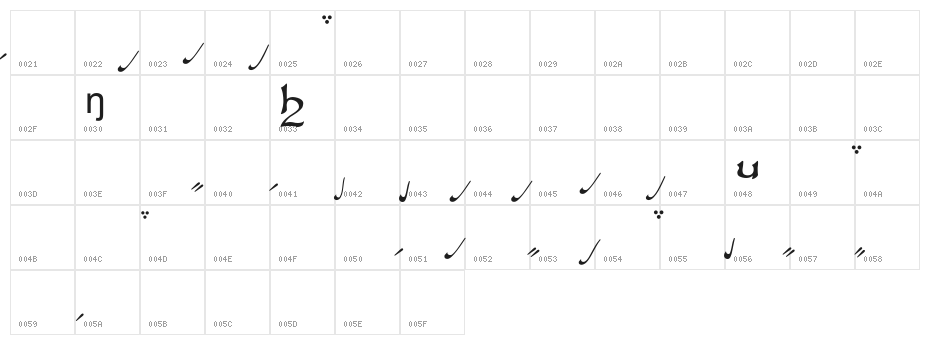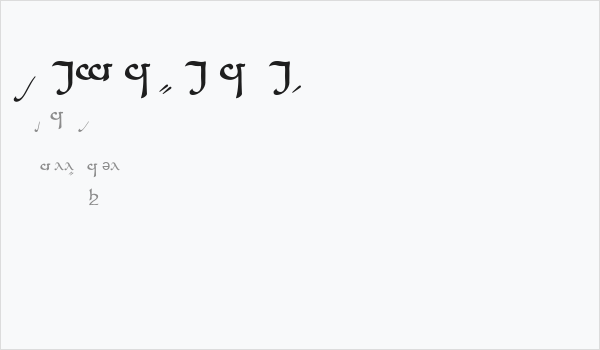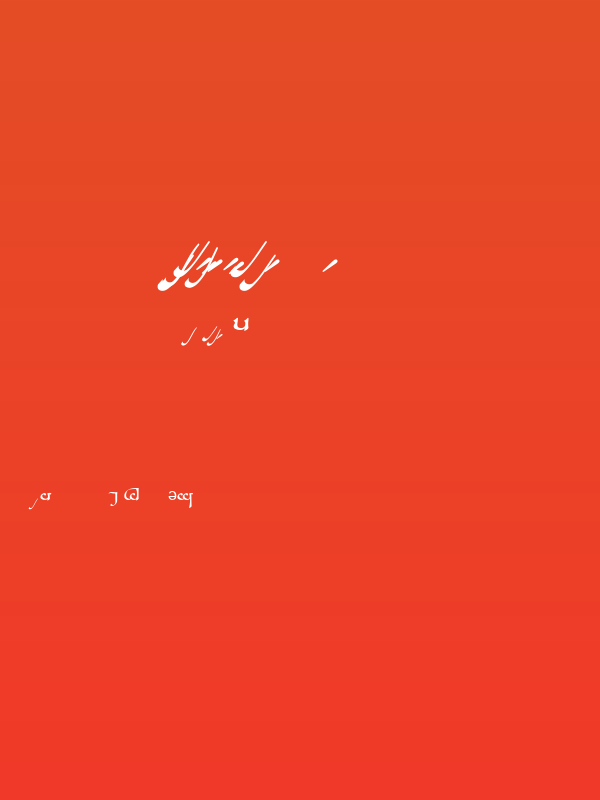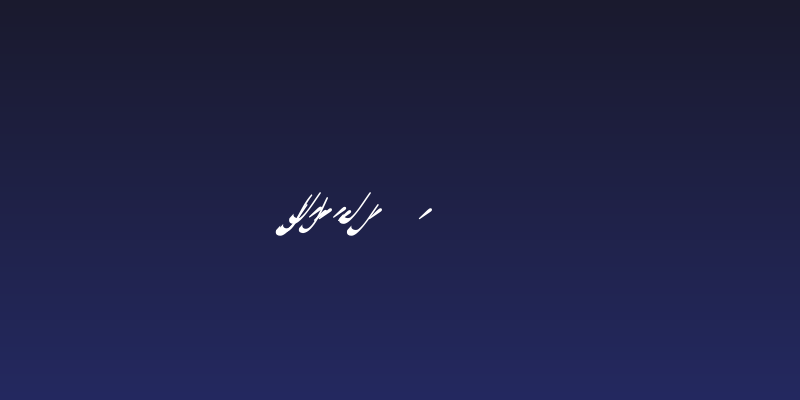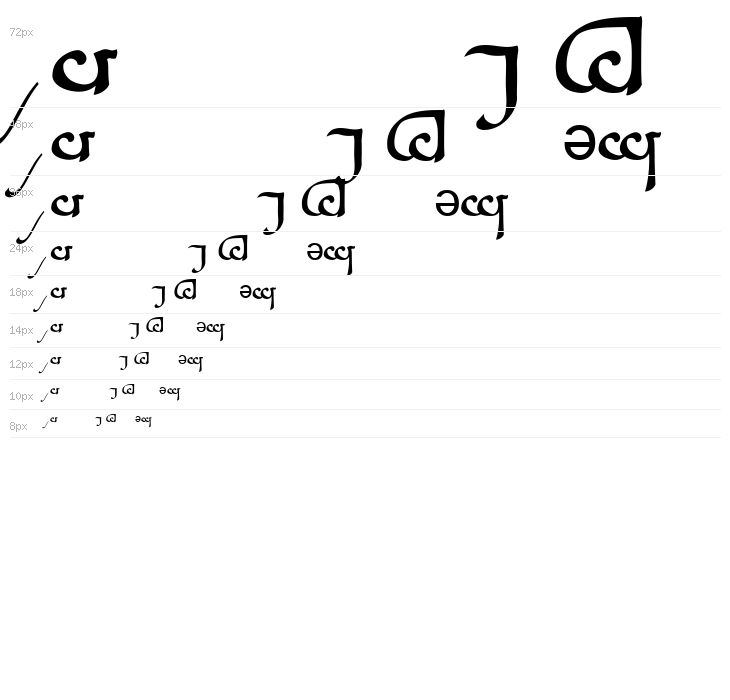
Tengwar Sindarin A Font
Tengwar Sindarin A Description
This script is a fictional writing system with a flowing, elegant style, often associated with fantasy settings. The characters are intricate, featuring curves and loops that suggest a sense of ancient mystique. The script is visually striking, with a unique aesthetic that combines both angular and rounded elements. It is designed to convey an otherworldly feel, making it ideal for creative projects that require a touch of fantasy or historical depth. The characters are distinct and decorative, each with its own unique flair, contributing to an overall impression of a sophisticated and elaborate script.
| Overall Style | Fantasy, Decorative |
| Use Case | Logos, Decorative text, Themed projects |
| Proposed Projects | Ideal for fantasy novels, role-playing games, movie props, and themed event invitations. |